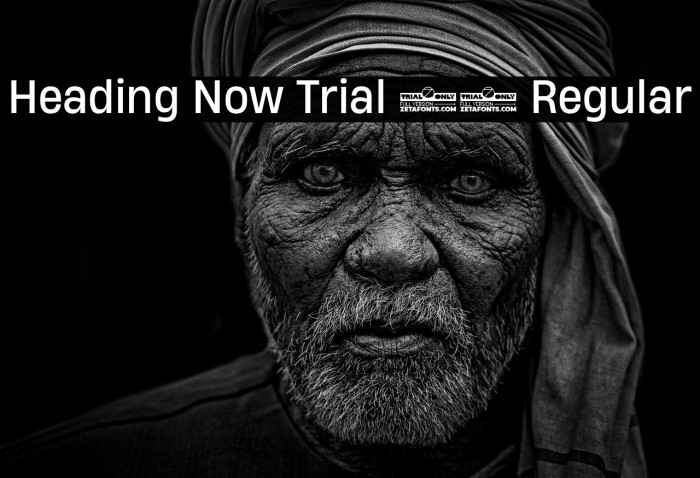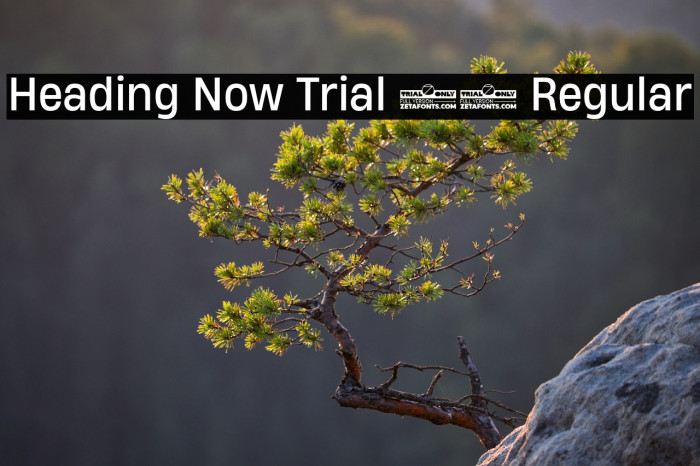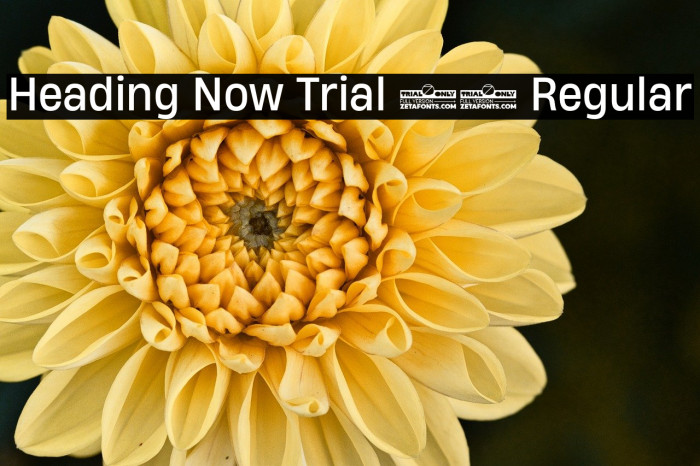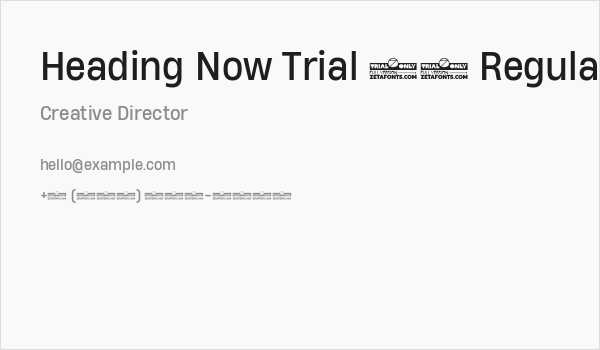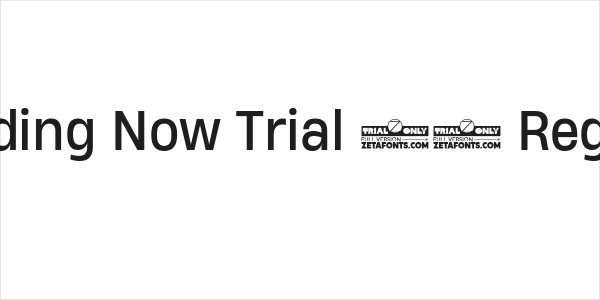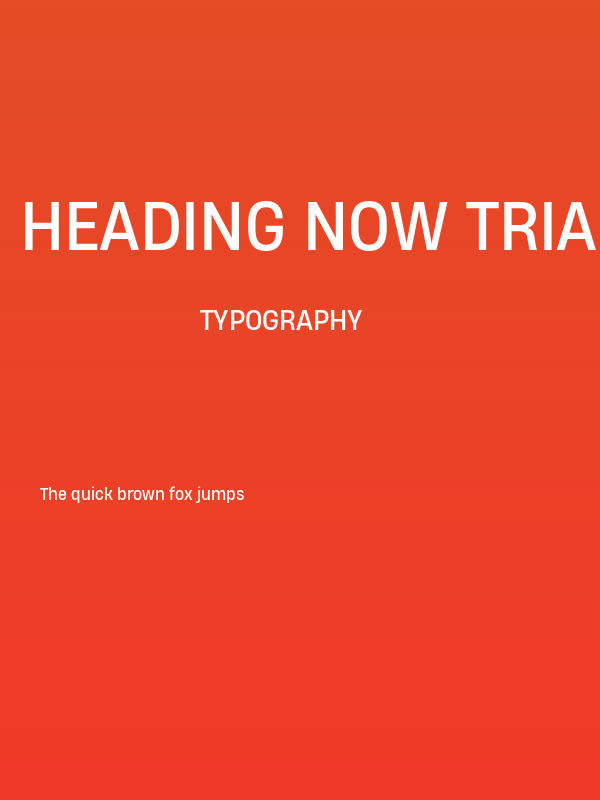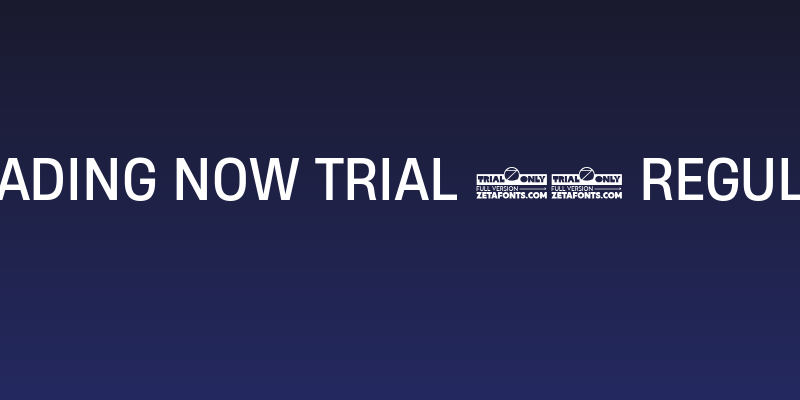
Heading Now Trial 64 Regular Font
Heading Now Trial 64 Regular Description
This font features a clean, modern sans-serif style with uniform stroke widths and a straightforward, geometric design. The uppercase letters are bold and commanding, while the lowercase letters maintain a consistent height and spacing, contributing to its readability. The numerals are clear and distinct, matching the overall aesthetic of the alphabetic characters. Special characters are well-defined, adding to the font's versatility. Its simplicity and clarity make it suitable for a wide range of applications, from digital interfaces to print media.
| Proposed Projects | Ideal for branding, digital interfaces, signage, and editorial design. |